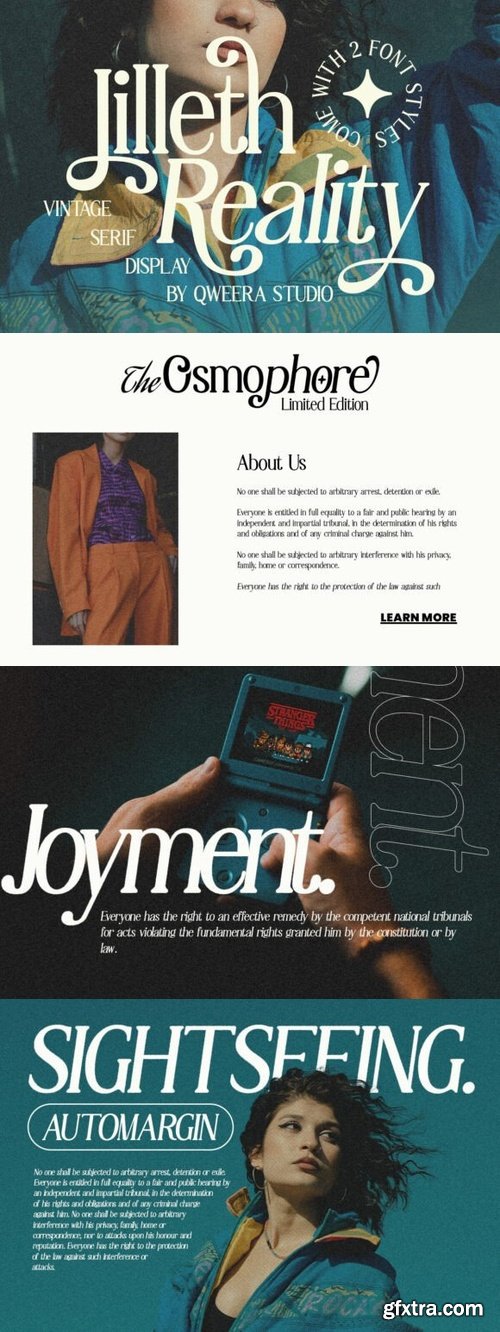
Lilleth Reality - Vintage Serif Font
- Lilleth Reality – Retro Vintage Serif Font for Timeless and Nostalgic DesignsLilleth Reality is more than just a font—it’s a celebration of retro vintage design, inspired by the iconic style of the 70s. With its bold and elegant elements, this font brings a nostalgic yet modern touch to your creative projects. Available in regular and italic styles, Lilleth Reality is perfect for posters, magazines, branding, and print materials, ensuring your designs look polished, professional, and full of personality.